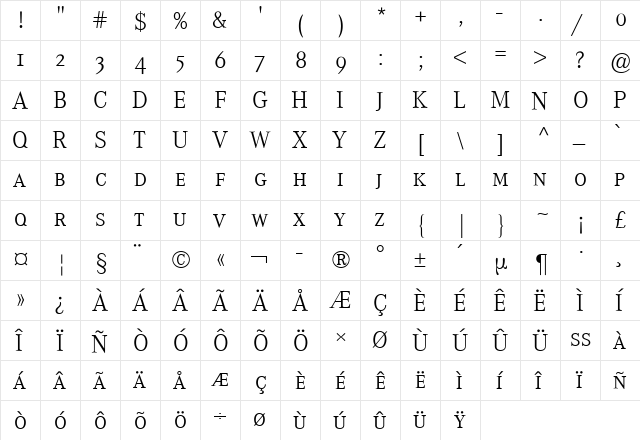
Corporate A Expert BQ Light
Design Context for Corporate A Expert BQ Typeface
Corporate A Expert BQ is a composed and adaptable typeface that performs quietly and consistently across a wide range of design contexts. The delicate stroke weight brings airiness and refinement to layouts.